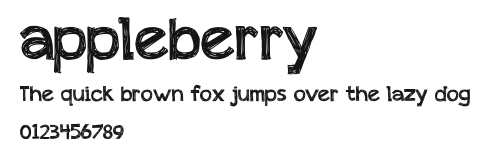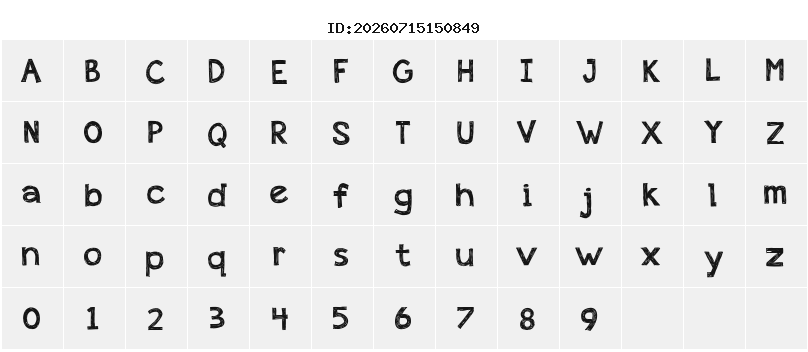
• Font Name: appleberry
• Full Font Name: appleberry
• Designer: Brittney Murphy
• Manufacturer: Brittney Murphy
About appleberry.ttf
appleberry.ttf is a modern, elegant sans-serif font designed for ultimate readability and visual harmony. Perfect for branding, headlines, web design, and print materials.